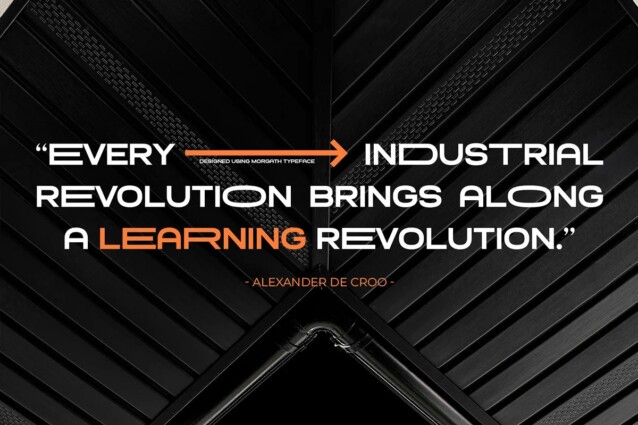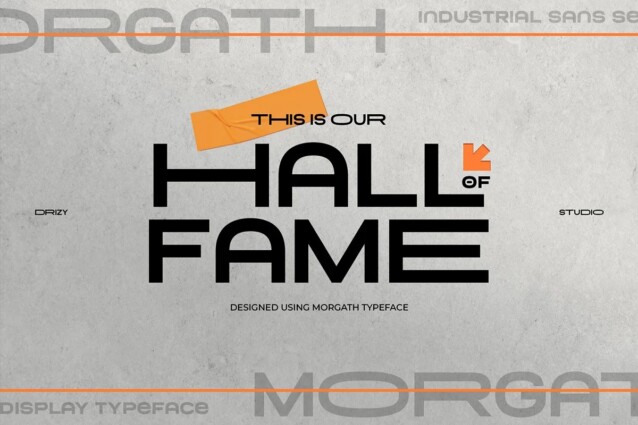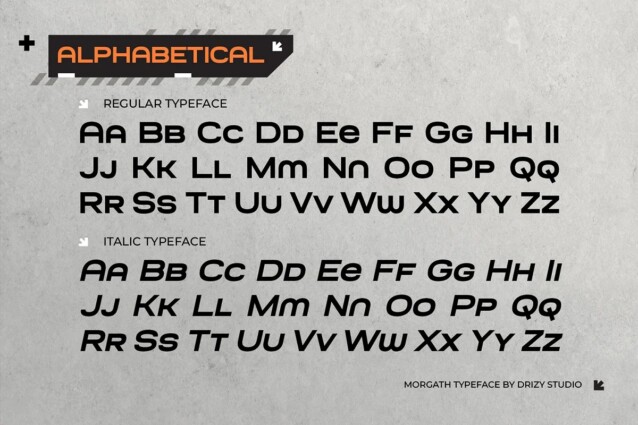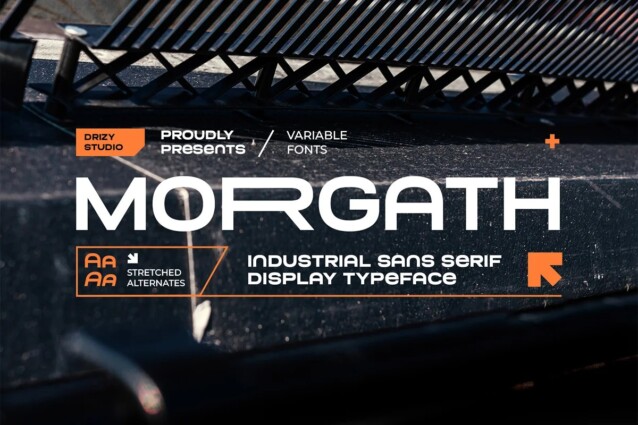
Morgath Font
Morgath Font is a typeface with a futuristic and experimental concept created with a strong and charismatic character. Prepare to explore the cutting edge of typography with Morgath, an extraordinary Industrial Sans Serif Font that’s designed to bring a strong, mechanical vibe to your projects. Morgath is a font that mirrors the raw power and precision of the industrial world.